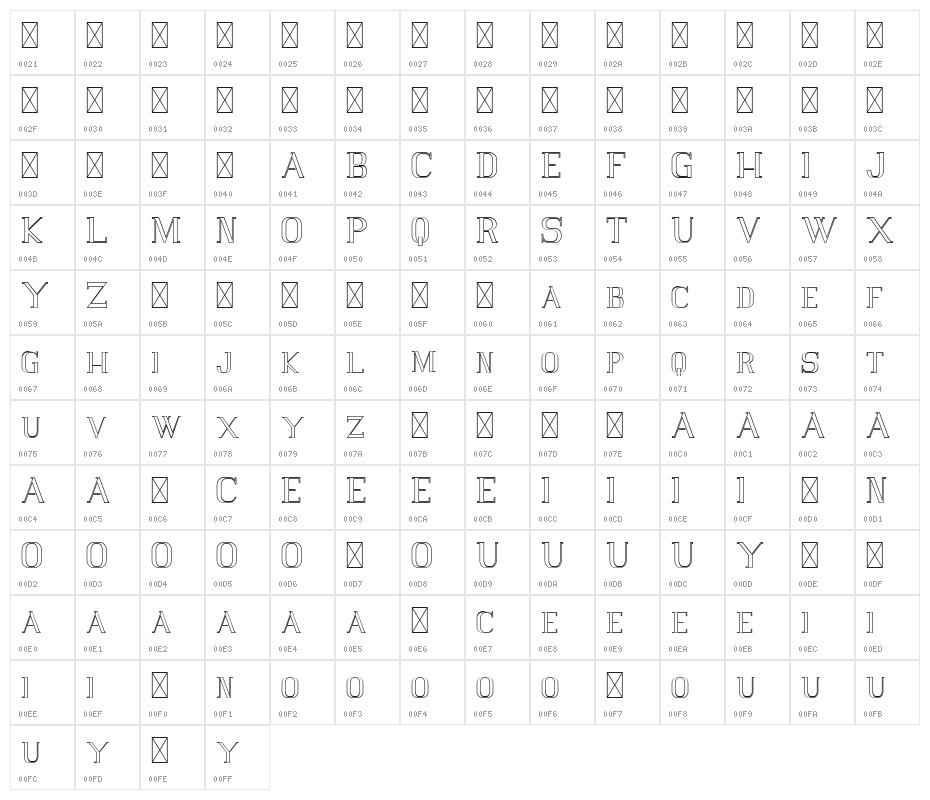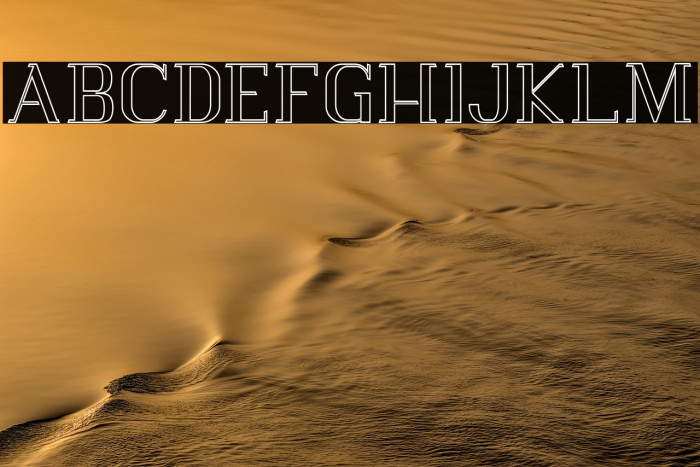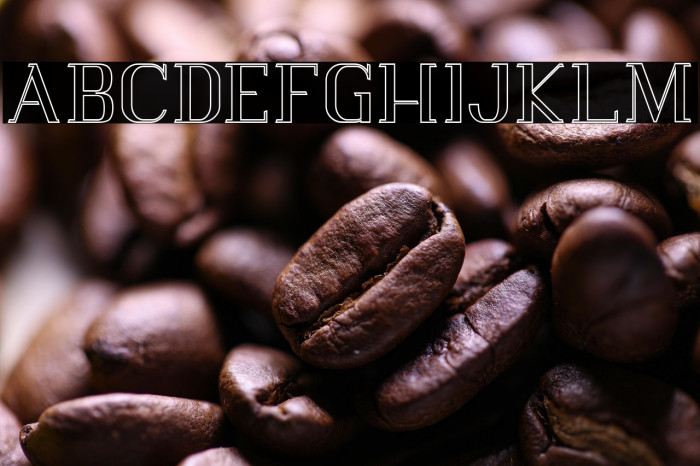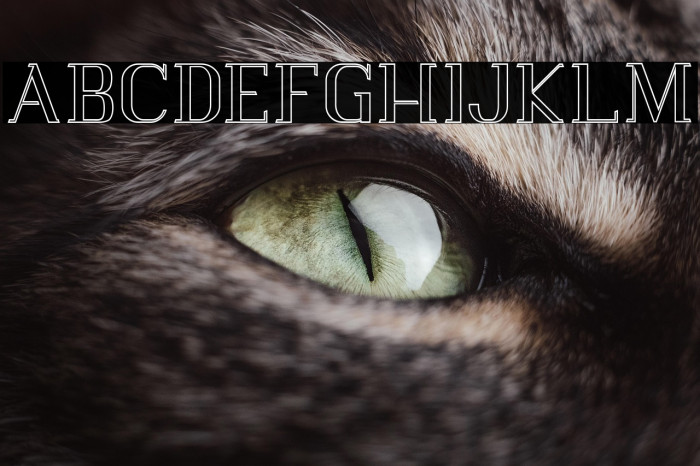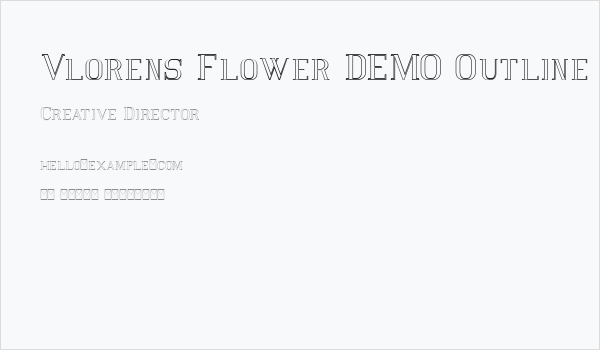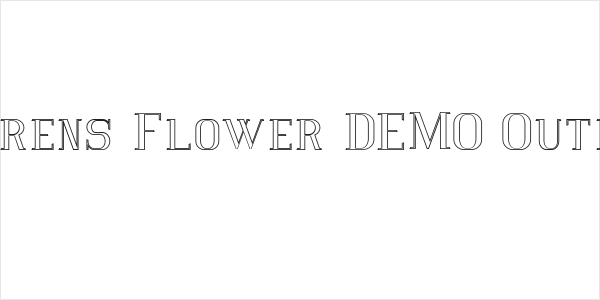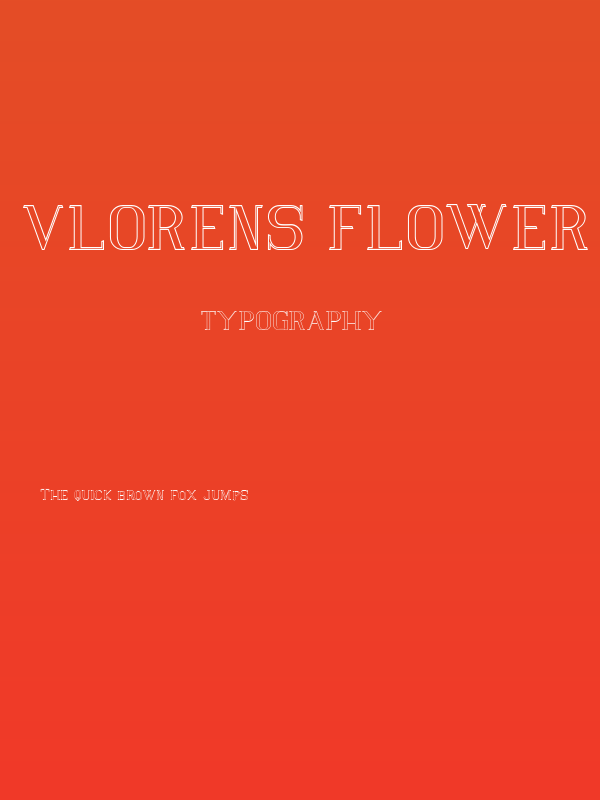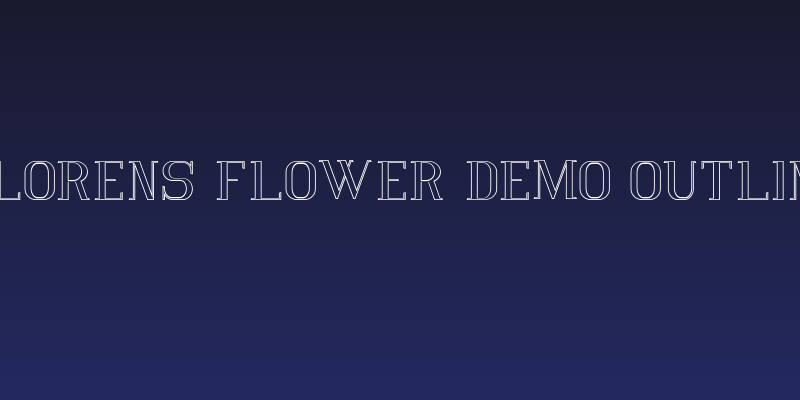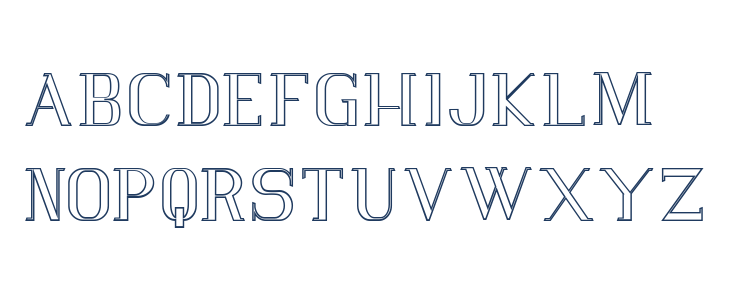
Vlorens Flower DEMO Outline Font
Vlorens Flower DEMO Outline Description
This font features a decorative outline style with a geometric and structured appearance. The uppercase letters are bold and angular, with a consistent line weight that gives them a modern and industrial feel. The characters are outlined, creating a hollow effect that adds a unique dimension to the text. This style is particularly eye-catching and can be used to make a strong visual impact. The font lacks lowercase letters and numerals, focusing solely on uppercase characters, which enhances its suitability for headlines and titles. The spacing between characters is normal, allowing for clear readability while maintaining its decorative appeal. The overall design is clean and precise, making it versatile for various design projects.
| Proposed Projects | Ideal for headlines, posters, branding, and any project requiring a bold, modern aesthetic. |